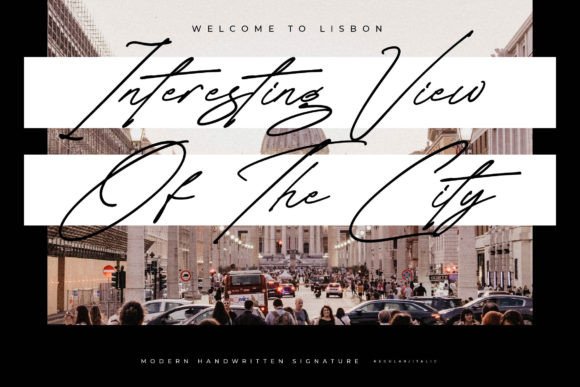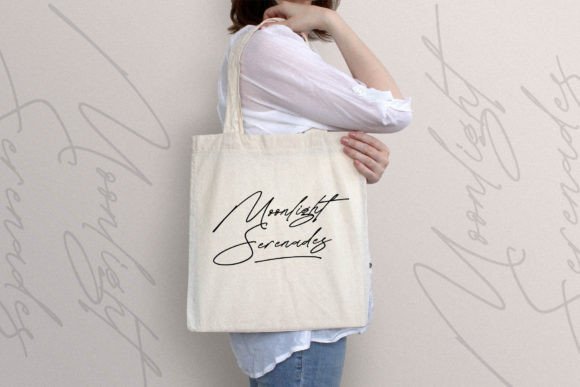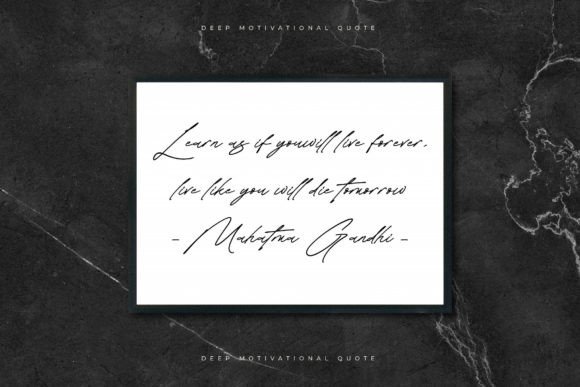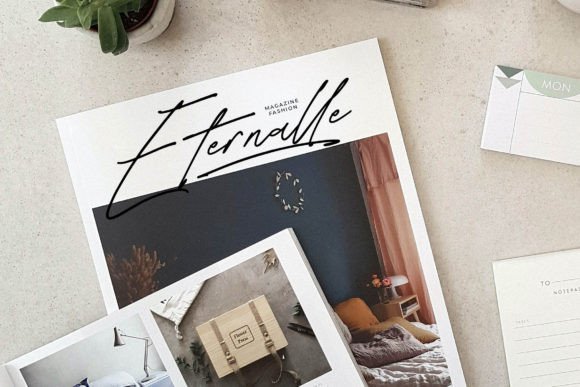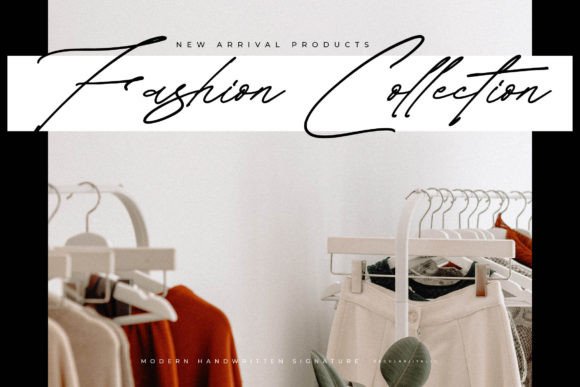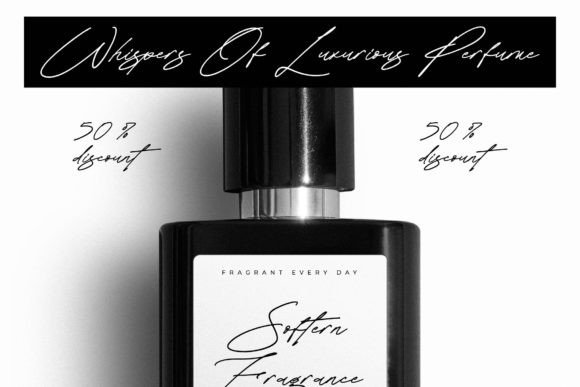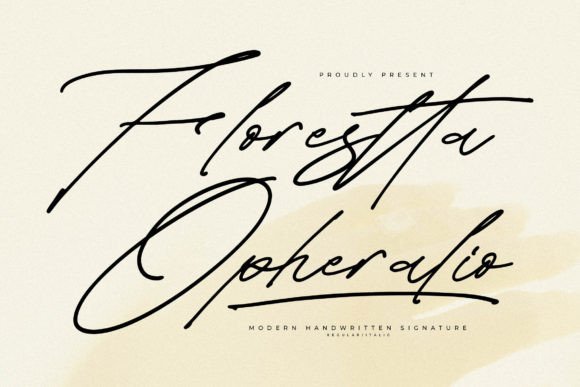
Introducing Florestta Opheralio Font: The Modern Handwritten Signature for Your Creative Projects
Are you a designer or crafter looking for a unique and elegant font to elevate your creative projects? Look no further than Florestta Opheralio, a modern handwritten signature font from Glorytype Studio. This stunning font is perfect for adding a touch of sophistication and style to any project, from logos and branding to homeware designs, product packaging, and more.
What Makes Florestta Opheralio Font So Special?
Florestta Opheralio is a beautifully crafted font that boasts a range of characteristics that make it stand out from the crowd. Here are just a few reasons why this font is a must-have for designers and crafters:
- Modern and Elegant: Florestta Opheralio has a sleek and contemporary feel that’s perfect for designers who want to create modern and stylish designs.
- Handwritten Signature: This font has a beautiful, handwritten quality that adds a touch of personality and whimsy to any project.
- Versatile: Florestta Opheralio is suitable for a wide range of projects, including logos, branding projects, homeware designs, product packaging, mugs, quotes, posters, shopping bags, t-shirts, book covers, name cards, invitation cards, greeting cards, labels, photography, watermarks, and more.
How to Use Florestta Opheralio Font in Your Projects
Florestta Opheralio is a versatile font that can be used in a variety of creative projects. Here are a few ideas to get you started:
- Logos and Branding: Use Florestta Opheralio to create a unique and memorable logo for your business or brand.
- Homeware Designs: Add a touch of elegance to your homeware designs, such as cushions, tote bags, and mugs.
- Product Packaging: Use Florestta Opheralio to create eye-catching product packaging that stands out on store shelves.
- Quotes and Posters: Create inspiring quotes and posters that feature the beautiful, flowing script of Florestta Opheralio.
- T-Shirts and Apparel: Use Florestta Opheralio to create stylish and unique t-shirts and apparel.
Why Choose Florestta Opheralio Font?
With so many fonts available, why choose Florestta Opheralio? Here are just a few reasons why this font stands out from the crowd:
- High-Quality: Florestta Opheralio is a high-quality font that’s been carefully crafted to ensure that it looks great in any project.
- Unique: This font has a unique and distinctive style that’s sure to make your projects stand out.